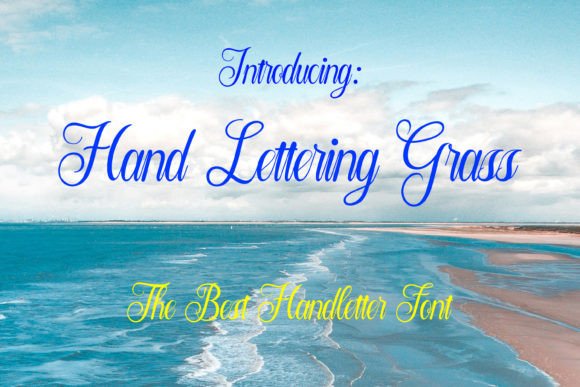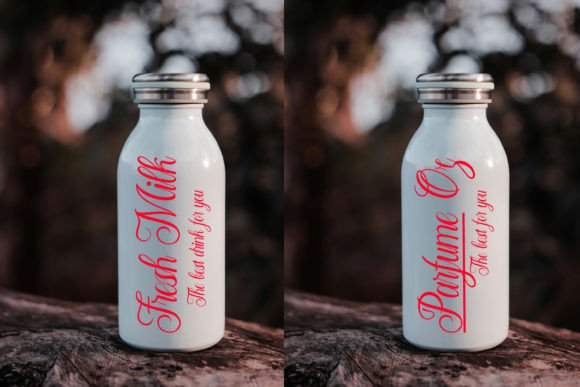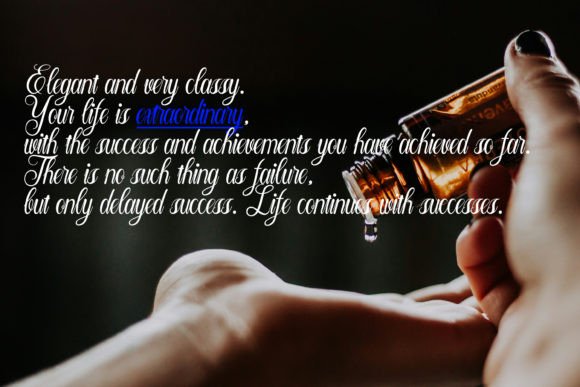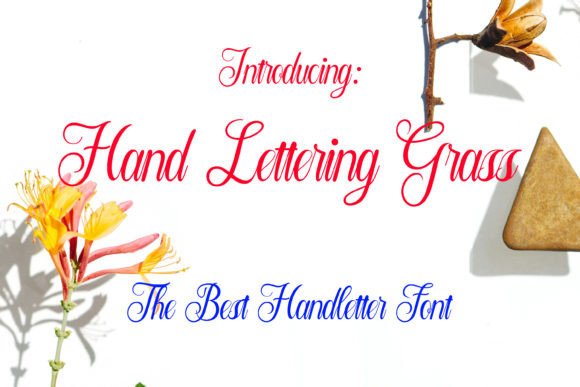
Discover the Beauty of Hand Lettering Grass Font
Are you a designer or crafter looking for a unique and elegant font to elevate your creative projects? Look no further than the Hand Lettering Grass Font. This stunning script font is based on handwriting and features beautiful upper and lower case letters that are sure to add a touch of sophistication to any design.
What Makes Hand Lettering Grass Font So Special?
Hand Lettering Grass Font is a true standout in the world of typography. Its smooth, clean lines and elegant curves make it a joy to read and behold. The font’s feminine, sensual, and glamorous aesthetic makes it perfect for a wide range of creative projects, from wedding invitations and branding materials to craft patterns and digital art.
The Characteristics of Hand Lettering Grass Font
So, what makes Hand Lettering Grass Font so special? Here are just a few of its key characteristics:
- Smooth and Clean Lines: The font features smooth, clean lines that are easy on the eyes and perfect for reading.
- Feminine and Sensual Aesthetic: The font’s elegant curves and flowing lines give it a distinctly feminine and sensual feel.
- Glamorous and Sophisticated: Hand Lettering Grass Font is the perfect choice for designers and crafters who want to add a touch of glamour and sophistication to their work.
- Simple and Easy to Read: Despite its elegant appearance, the font is surprisingly simple and easy to read, making it perfect for use in a wide range of creative projects.
Uses for Hand Lettering Grass Font
Hand Lettering Grass Font is a versatile font that can be used in a wide range of creative projects. Here are just a few ideas to get you started:
- Wedding Invitations and Branding: The font’s elegant and sophisticated aesthetic makes it perfect for wedding invitations, branding materials, and other special occasions.
- Craft Patterns and Digital Art: Hand Lettering Grass Font is also a great choice for craft patterns, digital art, and other creative projects where a touch of elegance and sophistication is desired.
- Signage and Display Text: The font’s smooth, clean lines and elegant curves make it perfect for use in signage and display text.
Tips for Using Hand Lettering Grass Font
Here are a few tips for using Hand Lettering Grass Font in your creative projects:
- Use it Sparingly: Because of its elegant and sophisticated aesthetic, Hand Lettering Grass Font is best used sparingly. Use it as a headline or title font, and pair it with a simpler font for body text.
- Experiment with Colors and Textures: Hand Lettering Grass Font looks great in a variety of colors and textures. Experiment with different combinations to find the one that works best for your project.
- Pay Attention to Kerning and Tracking: As with any font, it’s essential to pay attention to kerning and tracking when using Hand Lettering Grass Font. Make sure to adjust these settings to ensure that your text looks smooth and elegant.
Hand Lettering Grass Font is a beautiful and elegant script font that is perfect for designers and crafters looking to add a touch of sophistication to their creative projects. Its smooth, clean lines, elegant curves, and feminine aesthetic make it a joy to behold and use. Whether you’re working on a wedding invitation, branding materials, or digital art, Hand Lettering Grass Font is sure to impress.
Get Creative with Hand Lettering Grass Font